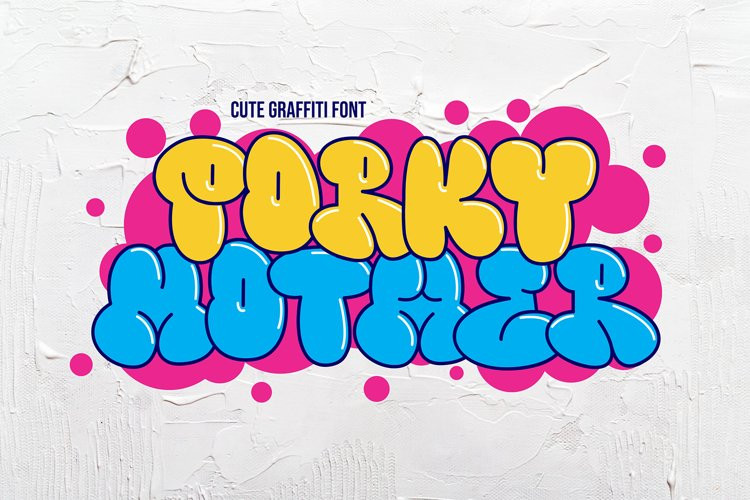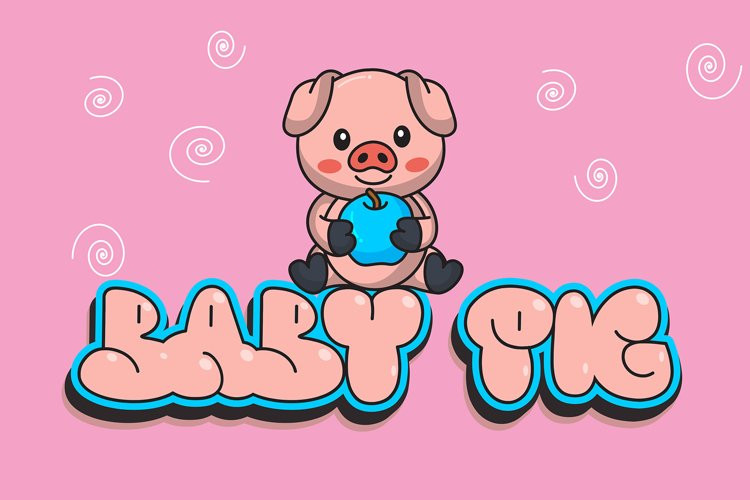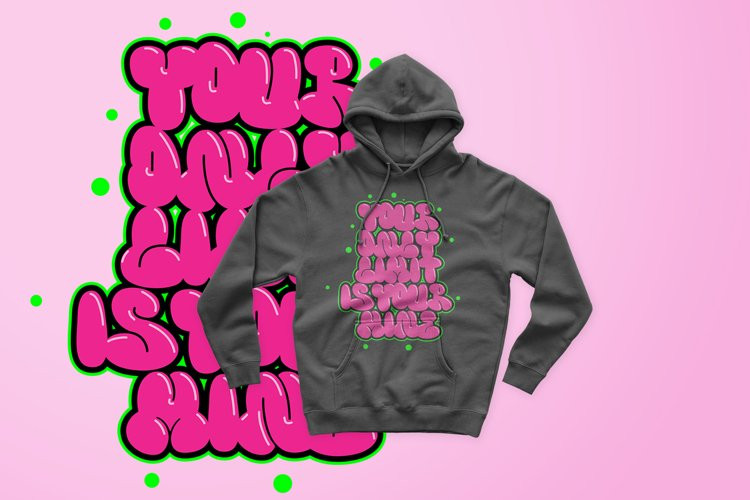
Porky Mother Font
Porky Mother FontPorky Mother is a spectacular decorative font with a graffiti style and bubble looks. It will elevate a wide range of design projects to the highest level, be it branding, headings, wedding designs, invitations, signatures, logotype, wall art illustration, apparel, labels, and much more!